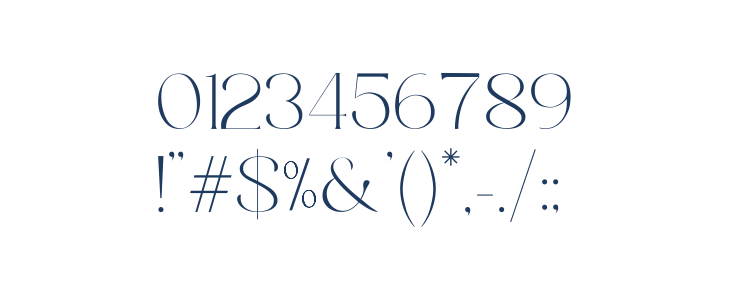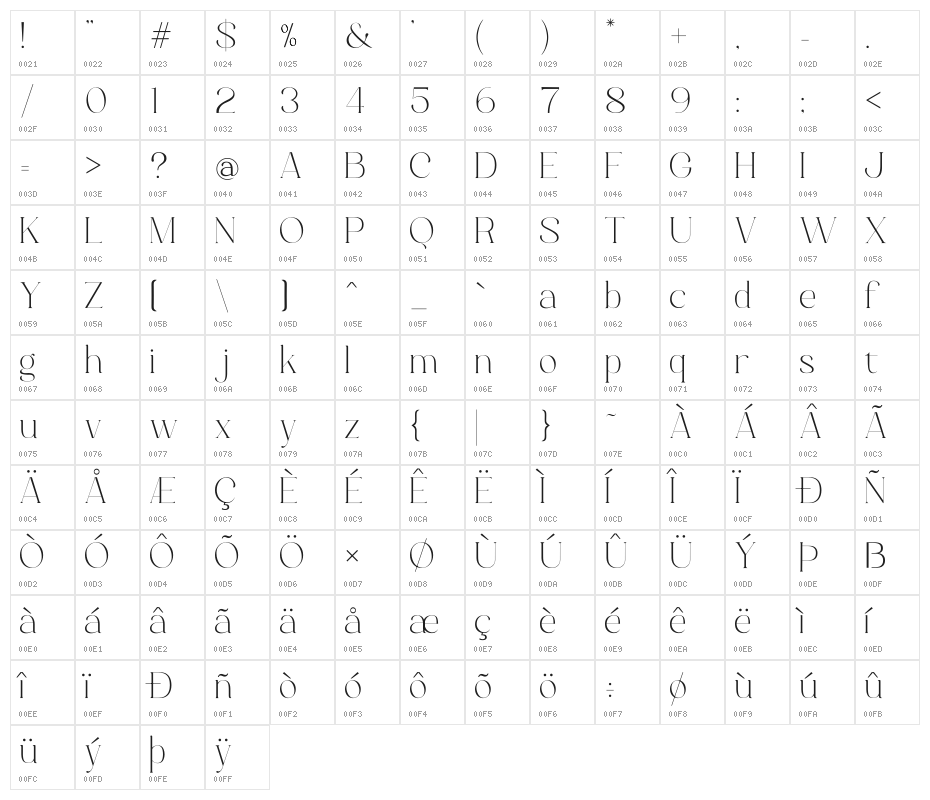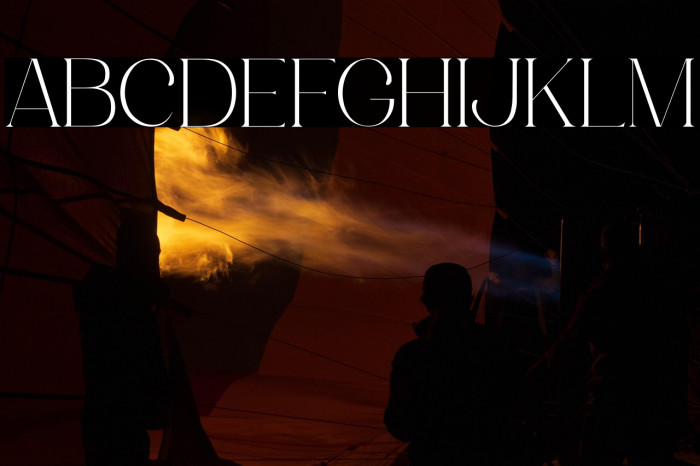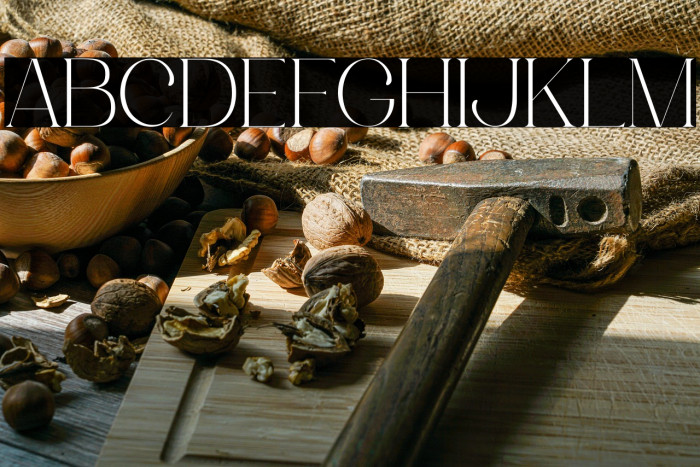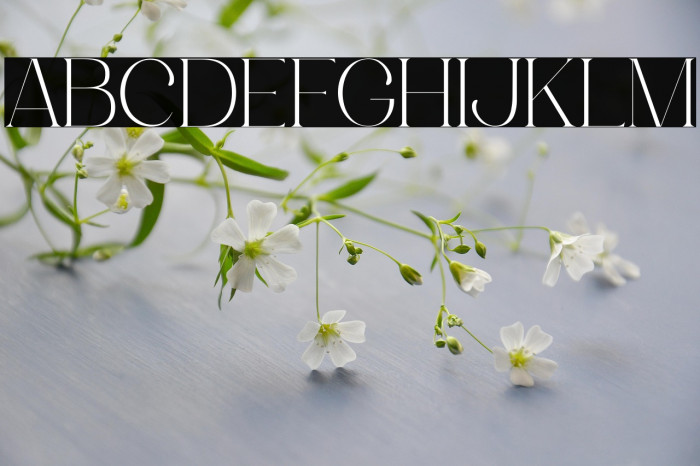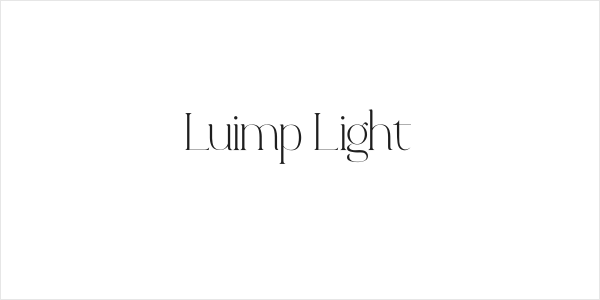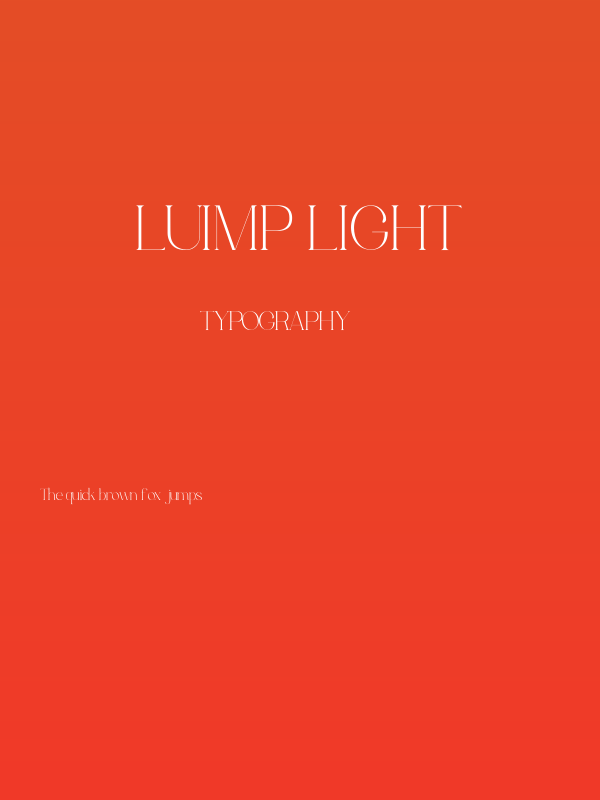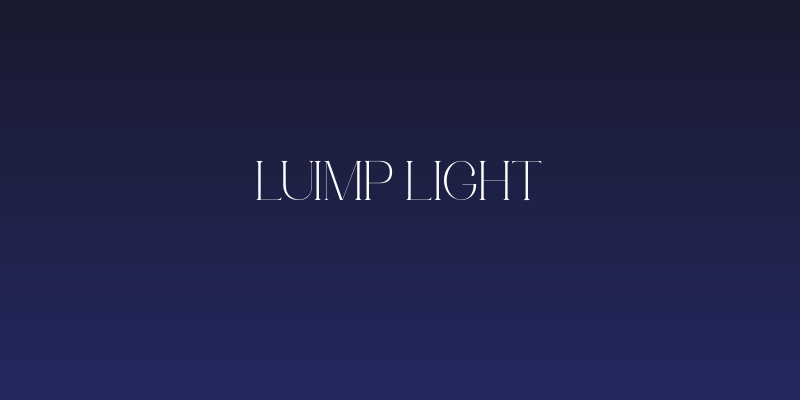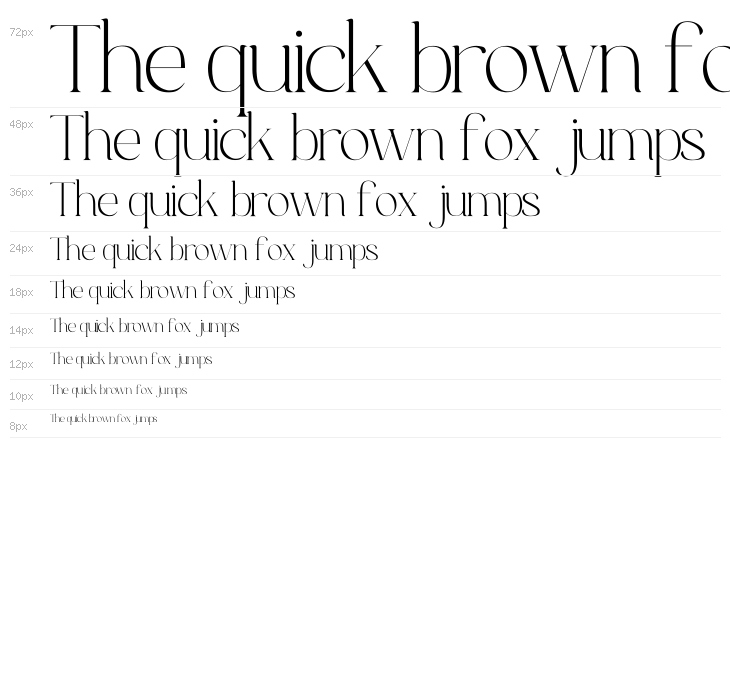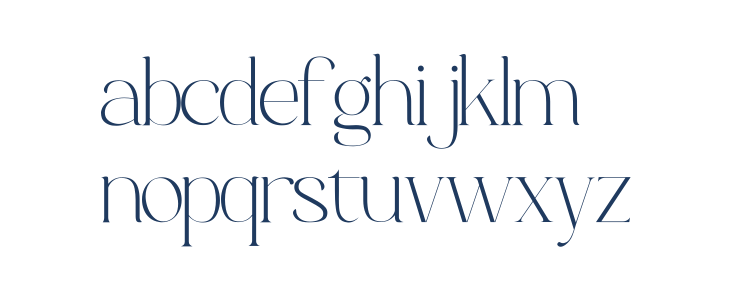
Luimp Light Font
Luimp Light Description
This font features a modern and elegant design with thin, elongated strokes and high contrast between thick and thin lines. The uppercase letters are tall and sophisticated, while the lowercase letters maintain a smooth and flowing appearance. The numerals are distinct and stylish, complementing the overall aesthetic. Special characters are crafted with precision, adding to the font's versatility. Its sleek and refined look makes it suitable for a variety of design projects.
| Use Case | Headlines, Logos, Editorial design |
| Proposed Projects | Ideal for luxury branding, editorial design, fashion magazines, and elegant invitations. |